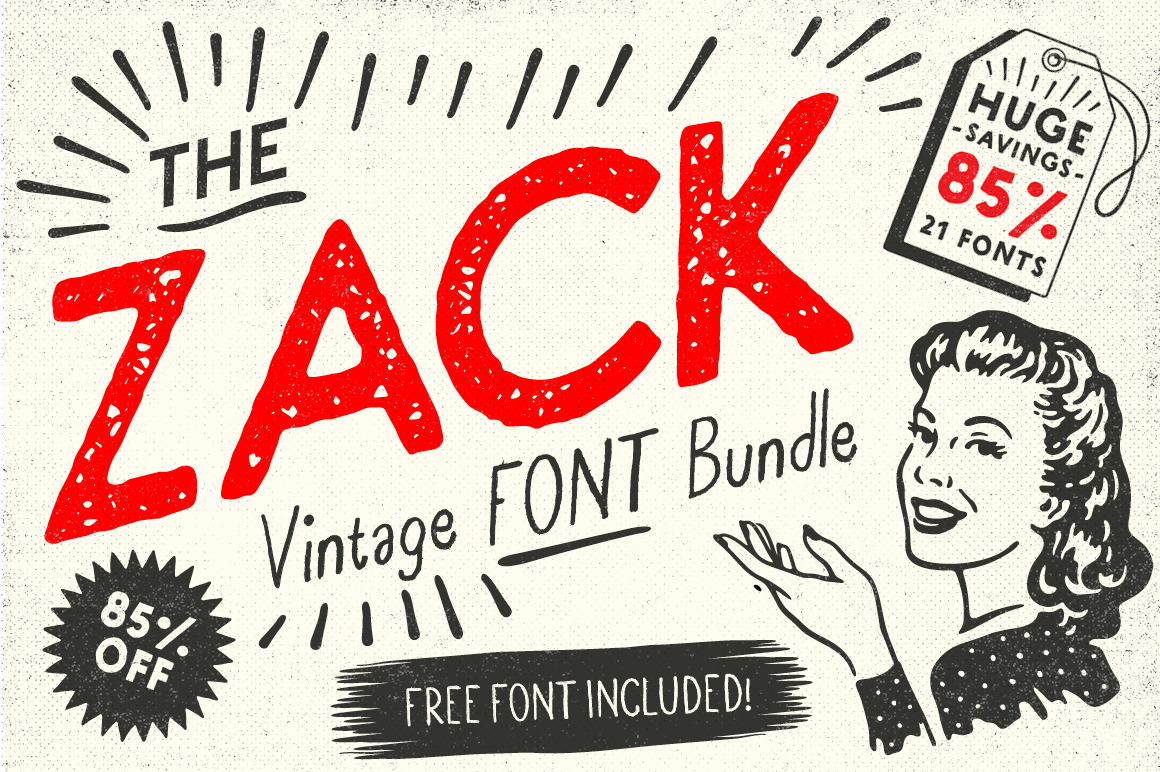
ZACK Vintage Font Bundle
The ZACK-VINTAGE-FONT-BUNDLE
21 Fonts for only 19 $! Handwritten fonts and the LORE Geometric-Sans-Serif in light, regular and bold in total 15 different styles!